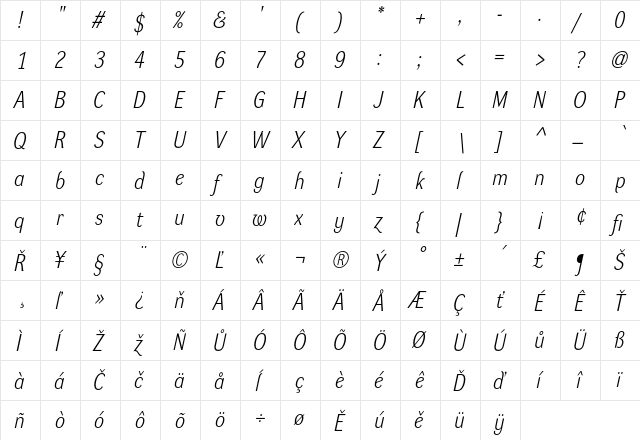
Dynamo LM Regular Font Preview
Dynamo LM Regular
Design Context for Dynamo LM Typeface
Dynamo LM is a composed and adaptable typeface that performs quietly and consistently across a wide range of design contexts.